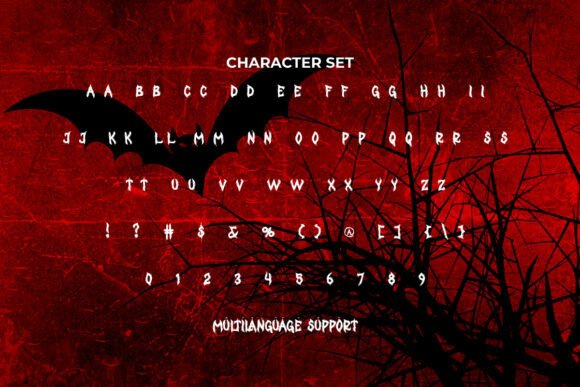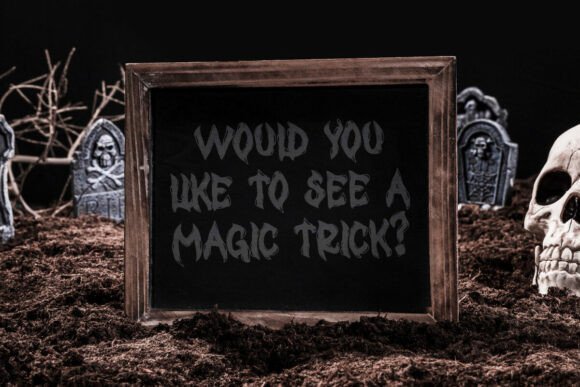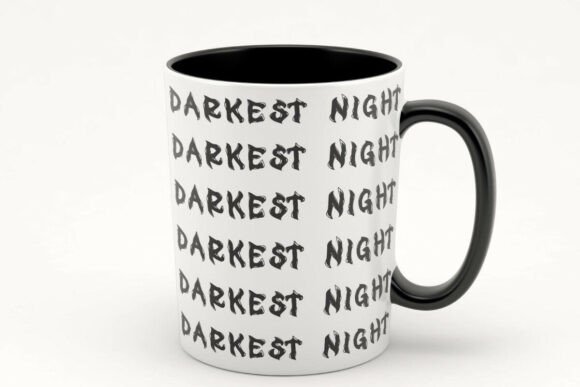
Unleash the Shadows with Evilmax Font: A Chilling Horror Display Typeface
Have you ever been working on a design project, and suddenly, you’re struck with a creative block? You’re trying to convey a spooky atmosphere, but your font just isn’t cutting it. I recall a similar experience while designing a Halloween-themed invitation. My client wanted something that would send shivers down the recipients’ spines, but I was struggling to find the perfect font. That’s when I stumbled upon the Evilmax Font, a horror, creepy display font designed by NoahType. In this article, we’ll dive into the world of Evilmax Font, exploring its features, uses, and some practical tips on how to make the most of this sinister typeface.
A Personal Encounter with Evilmax Font
I was immediately drawn to Evilmax Font’s unique, jagged letterforms that seemed to scream “horror” and “mystery.” The font’s aggressive, uneven design captured a raw, sinister energy that was perfect for my Halloween invitation project. I knew right then that Evilmax Font was the perfect fit. With its “black metal” aesthetic, this font is not just for scares; it’s also a stylish choice for designers looking to add a touch of darkness to their creations.
An Honest Review of Evilmax Font
What I Love About Evilmax Font
- ✨ Unique and eye-catching design: Evilmax Font’s jagged, dripping letterforms are sure to grab attention.
- ✅ Versatile: This font can be used for a wide range of design projects, from brand images to product packaging.
- 🔥 Perfect for horror and dark themes: Evilmax Font is ideal for Halloween events, heavy metal album covers, and dark fantasy game titles.
While Evilmax Font is an excellent choice for many design projects, there are a few things to keep in mind:
- 🤔 Limited legibility: Due to its aggressive design, Evilmax Font may not be suitable for body text or long paragraphs.
- ⚠️ Overuse can be overwhelming: Use Evilmax Font sparingly to avoid overwhelming your audience.
The Backstory of Evilmax Font
Evilmax Font was designed by NoahType, a talented font designer with a passion for creating unique and eye-catching typefaces. According to NoahType, Evilmax Font was inspired by the dark and edgy world of heavy metal music and horror movies. The font’s jagged, dripping letterforms were designed to evoke a sense of fear and unease, making it perfect for designers looking to add a touch of darkness to their creations.
| Font Name | Evilmax Font |
| Author | NoahType |
Q: What is Evilmax Font best used for?
A: Evilmax Font is best used for design projects that require a horror or dark theme, such as Halloween events, heavy metal album covers, and dark fantasy game titles.
Q: Is Evilmax Font easy to read?
A: Due to its aggressive design, Evilmax Font may not be suitable for body text or long paragraphs. It’s best used for headlines or short text elements.